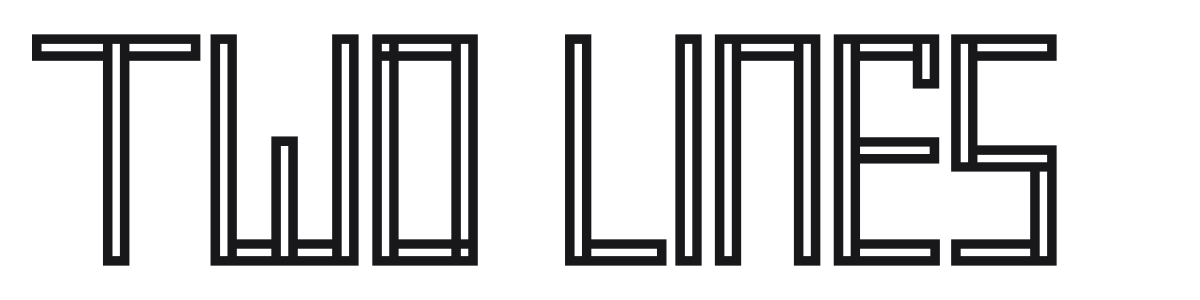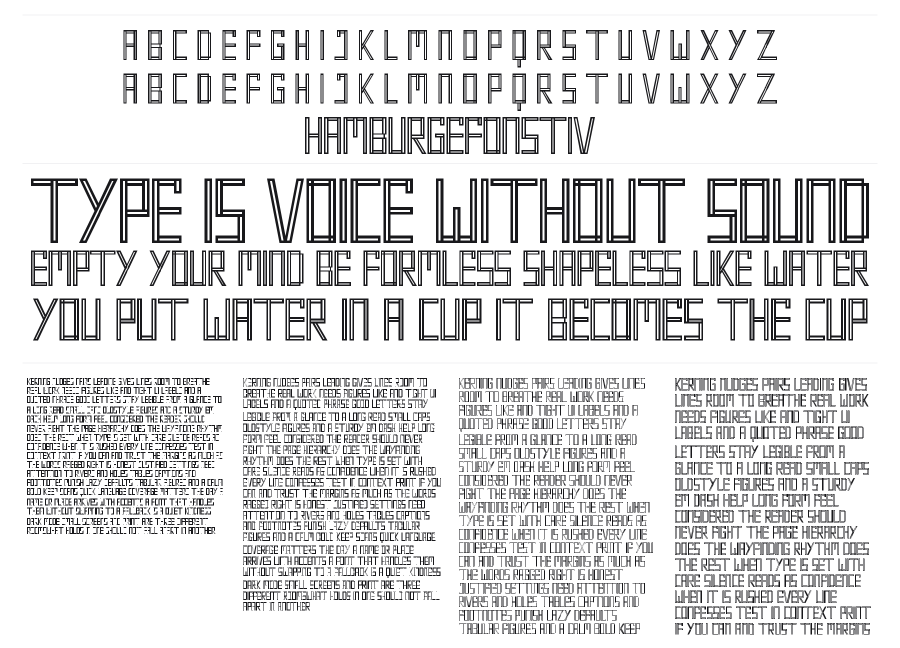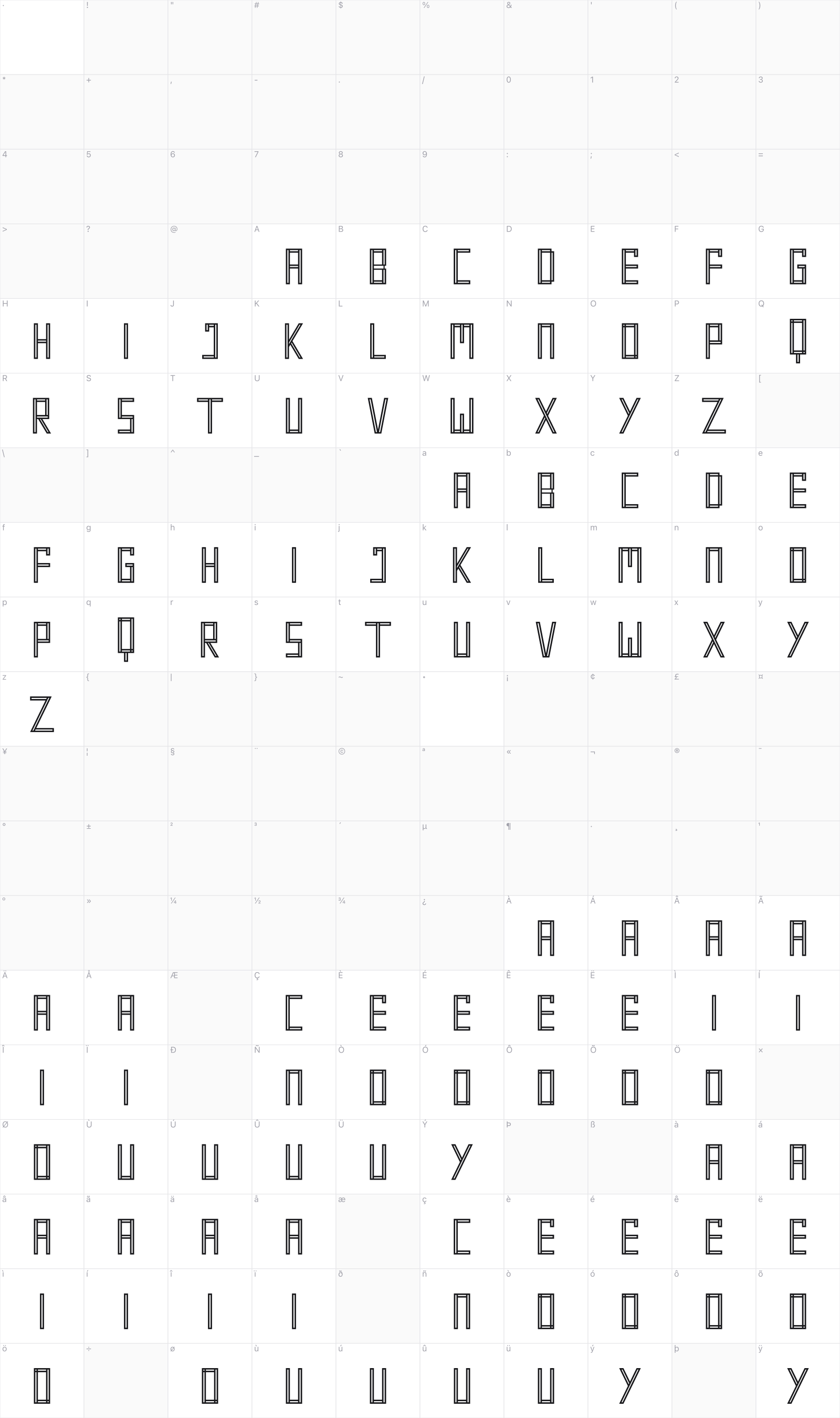
Two Lines
Two Lines is a condensed geometric outline font built on a double-stroke construction that gives every character a tubular, architectural feel. The tight rectangular proportions and sharp corners draw from Bauhaus and constructivist traditions, making it feel both historical and contemporary. It works best large, where the parallel-line detail reads clearly as a design feature rather than noise.